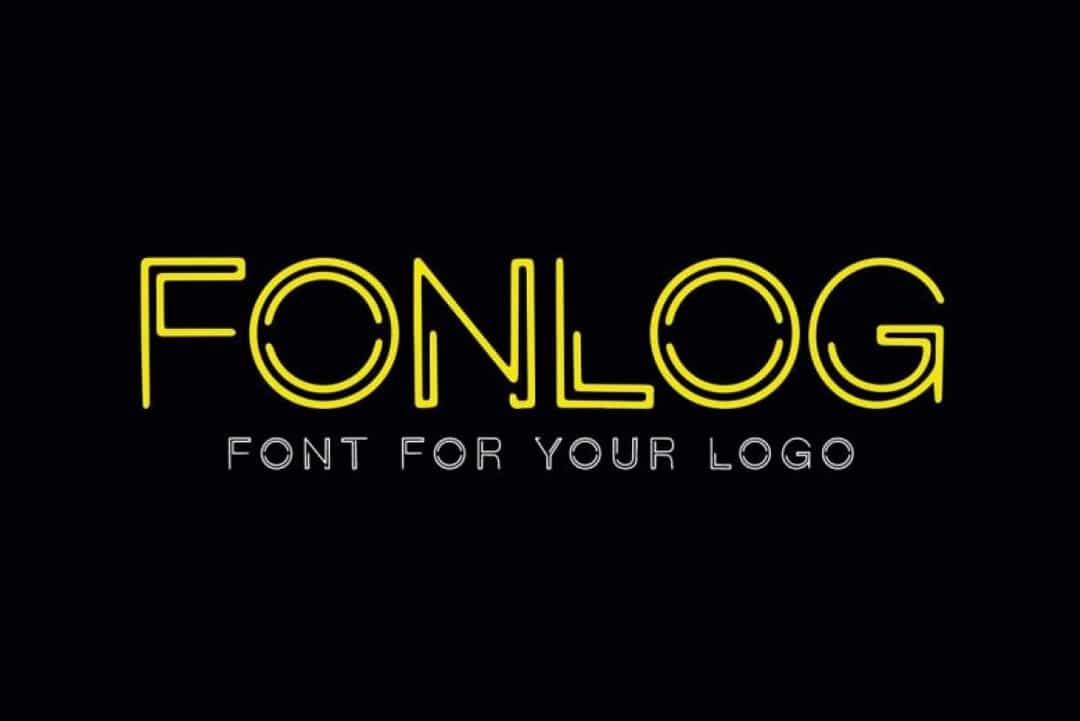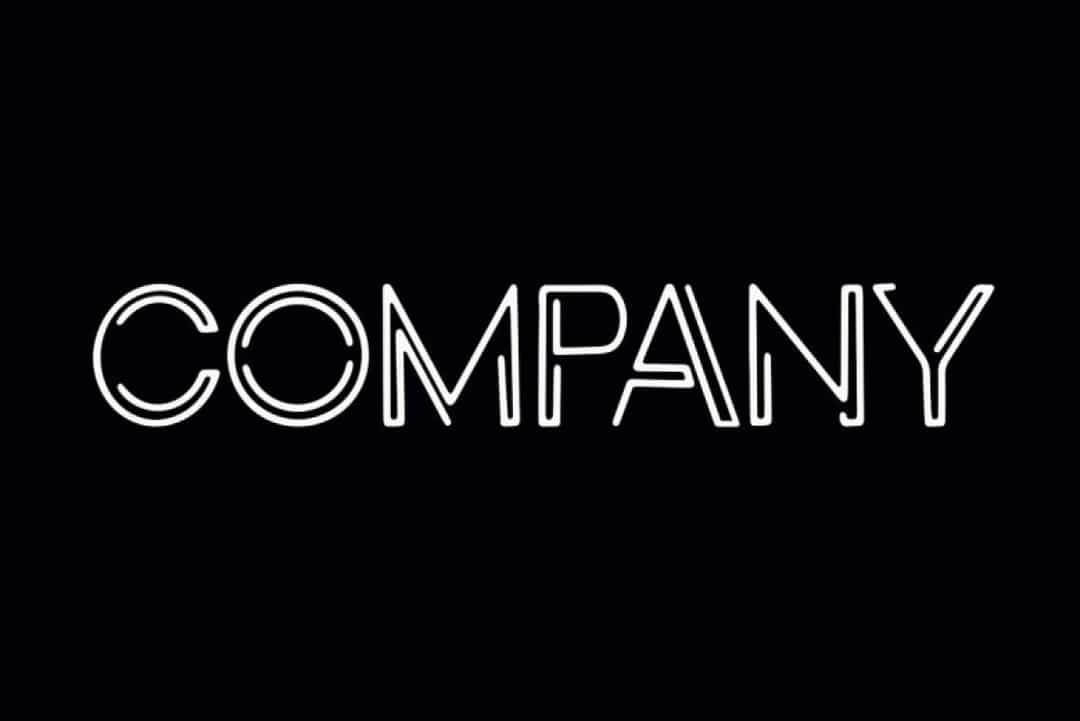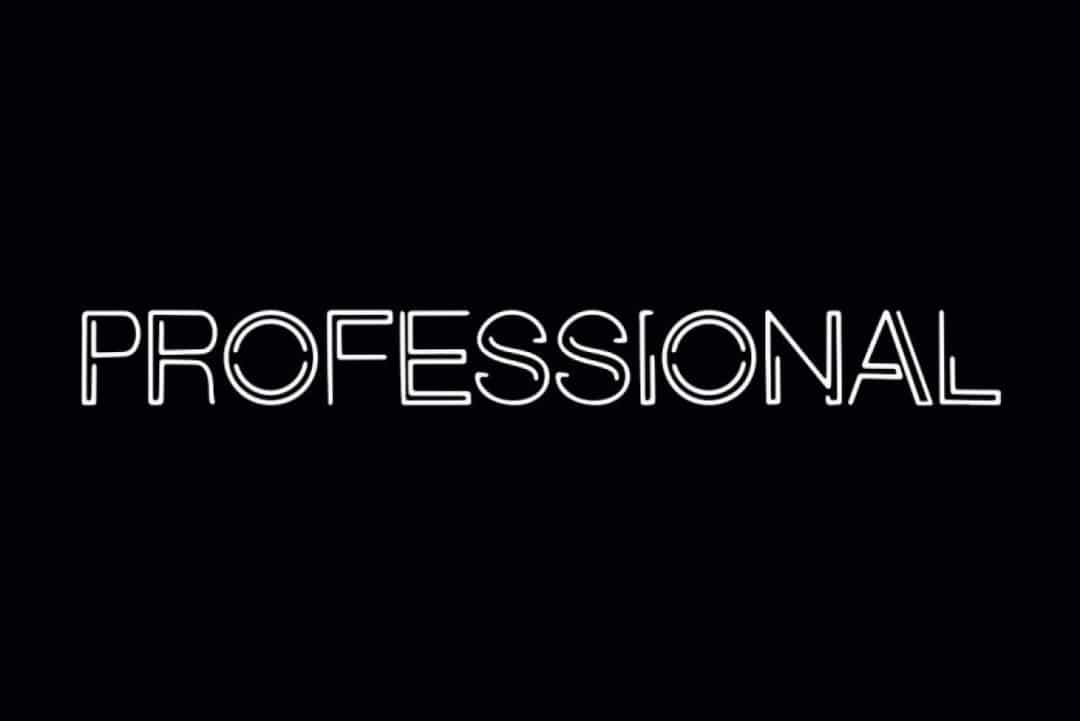
Discover Fonlog Font, part of the Display Logos collection—a versatile and unique font perfect for adding a personal touch to your projects. Download it for free and enjoy crafting designs with style, from invitations to social media posts. This font is available exclusively for personal use, giving you the freedom to create without limits. Unlock your creativity with Fonlog Font today!
Fonlog is an accessible logo display template with futuristic styling that’s clean and fun, perfect for logos as well as branding social media accounts and creative DIY projects.